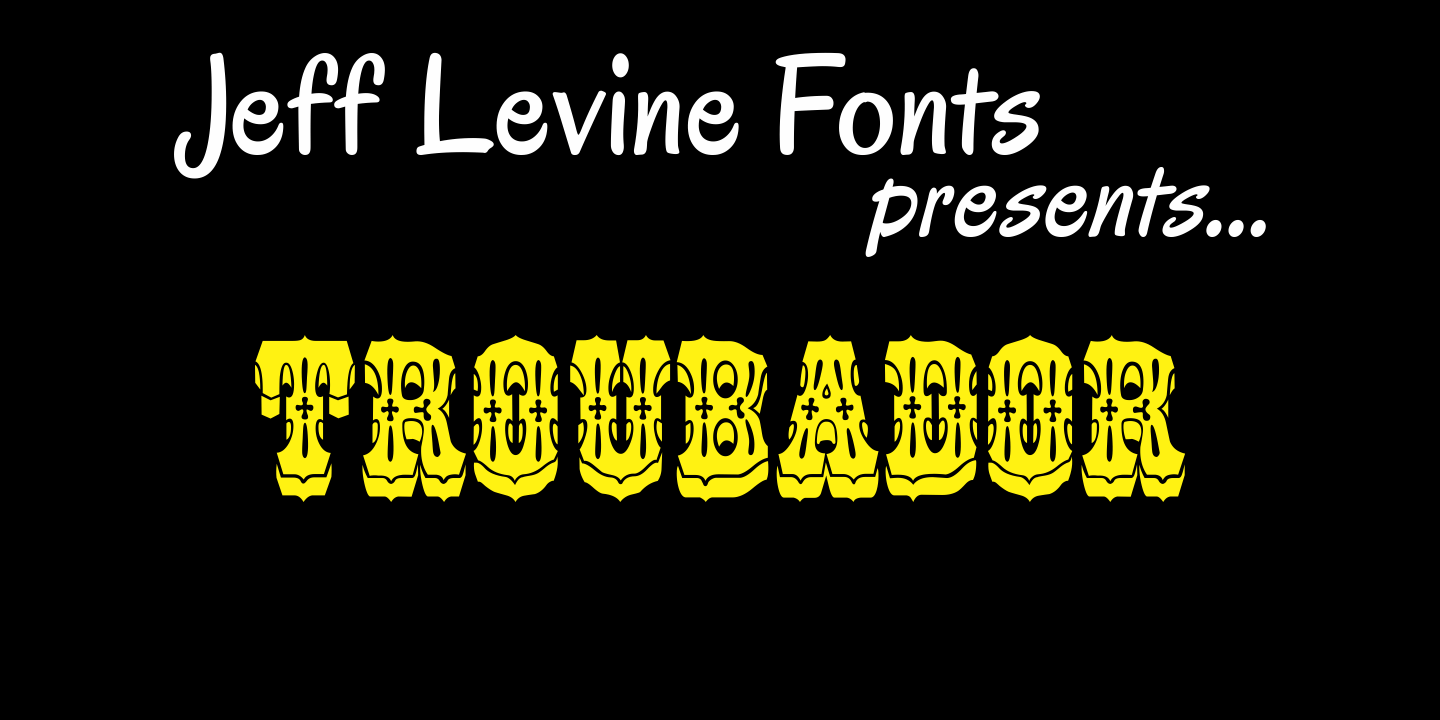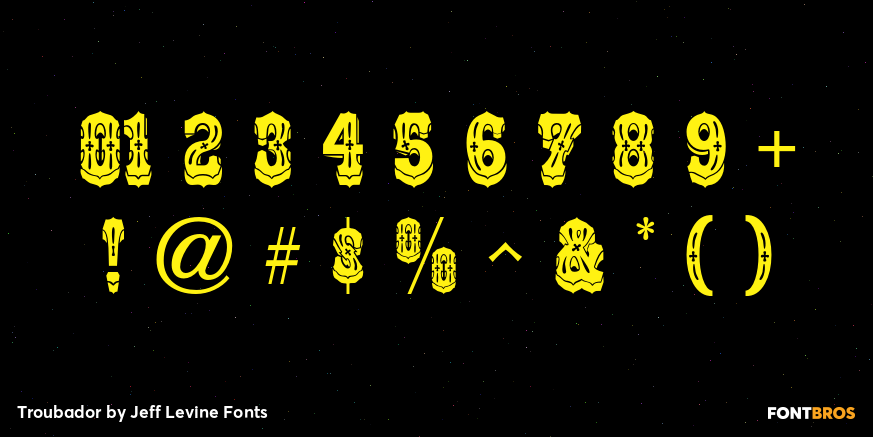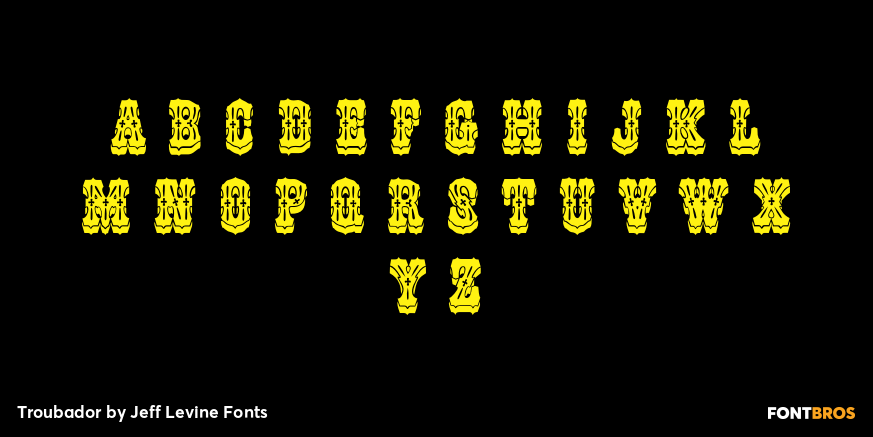
Troubador
The charm of wood type – especially in reproductions from worn specimens – is the combination of hand-crafted letters and numbers and a connection with the past.
Troubador JNL was redrawn from one such example found in a type reference book of Victorian-era designs. While some of the obvious flaws in the printed samples were corrected, others were left intact to retain the ambiance of that time period.
Only the basic alphabet and a few punctuation marks were available. Jeff Levine has added in the numbers, foreign characters, additional punctuation and necessary accents to make this a fully-functional font.